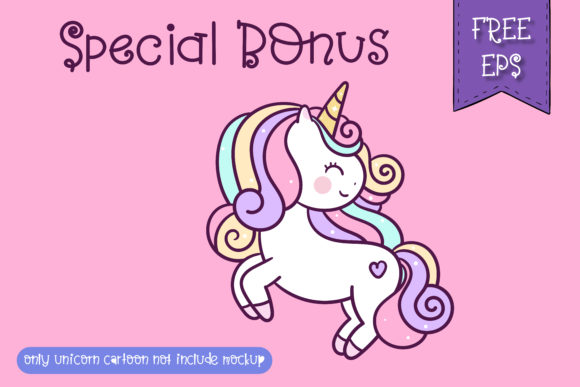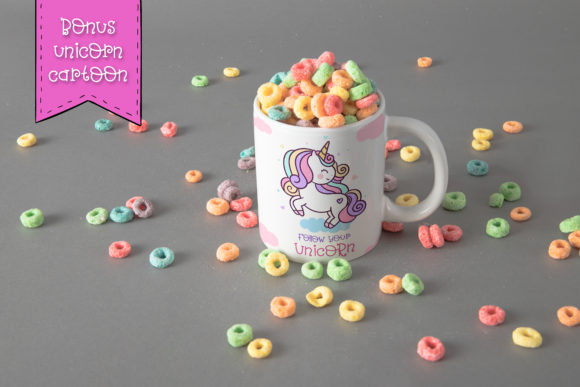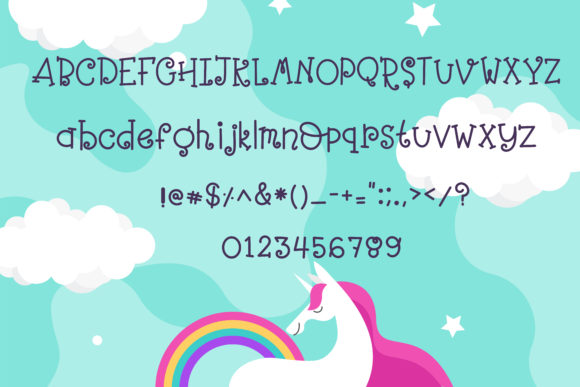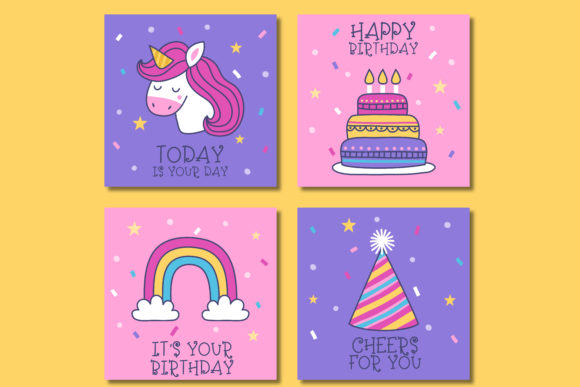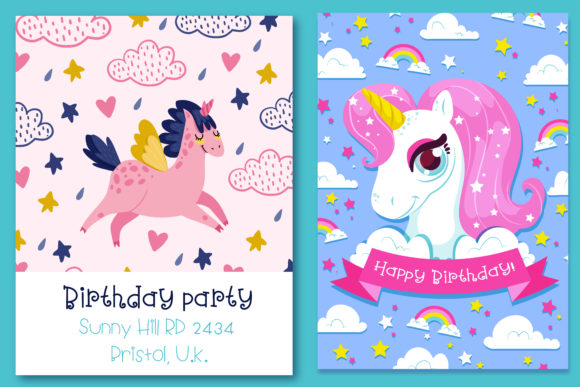
Girly Unicorn Font: Add a Touch of Whimsy to Your Designs
Are you looking for a font that can add a dash of magic to your designs? Look no further than the Girly Unicorn font! This lovely and sweet display font is perfect for school projects, kids’ crafts, and any other design that needs a touch of whimsy. In this article, we’ll take a closer look at the Girly Unicorn font, its features, and how you can use it to brighten up your designs.
What is Girly Unicorn Font?
Girly Unicorn is a display font that is designed to be fun, playful, and eye-catching. It’s perfect for designs that need a touch of sweetness and innocence. The font features rounded letters, cute ligatures, and a sparkly personality that’s sure to delight kids and adults alike.
Features of Girly Unicorn Font
- Lovely and Sweet Design: The Girly Unicorn font has a lovely and sweet design that’s perfect for kids’ projects, school assignments, and any other design that needs a touch of whimsy.
- Rounded Letters: The font features rounded letters that give it a soft and cuddly feel.
- Cute Ligatures: The font includes cute ligatures that add to its playful personality.
- Sparkly Personality: The Girly Unicorn font has a sparkly personality that’s sure to delight kids and adults alike.
How to Use Girly Unicorn Font
The Girly Unicorn font is easy to use and can be added to your designs in just a few clicks. Here are some ideas for using the font:
- School Projects: Add the Girly Unicorn font to your school projects, such as posters, presentations, and reports, to give them a touch of personality.
- Kids’ Crafts: Use the Girly Unicorn font to create fun and playful crafts for kids, such as birthday cards, party invitations, and DIY projects.
- Digital Designs: Add the Girly Unicorn font to your digital designs, such as social media graphics, blog posts, and email newsletters, to give them a touch of whimsy.
Benefits of Using Girly Unicorn Font
There are many benefits to using the Girly Unicorn font in your designs. Here are a few:
- Adds Personality: The Girly Unicorn font adds a touch of personality to your designs, making them more engaging and fun.
- Perfect for Kids: The font is perfect for kids’ projects and crafts, making it a great choice for parents, teachers, and kids’ party planners.
Tips for Using Girly Unicorn Font
Here are some tips for using the Girly Unicorn font:
- Use it for Headings: The Girly Unicorn font is perfect for headings and titles, where you want to make a bold statement.
- Pair it with Other Fonts: Pair the Girly Unicorn font with other fonts to create a unique and interesting design.
- Experiment with Colors: Experiment with different colors to find the perfect combination that works with the Girly Unicorn font.
In conclusion, the Girly Unicorn font is a lovely and sweet display font that’s perfect for adding a touch of whimsy to your designs. With its rounded letters, cute ligatures, and sparkly personality, it’s sure to delight kids and adults alike. Whether you’re working on a school project, kids’ craft, or digital design, the Girly Unicorn font is a great choice. So why not give it a try and see how it can brighten up your designs?